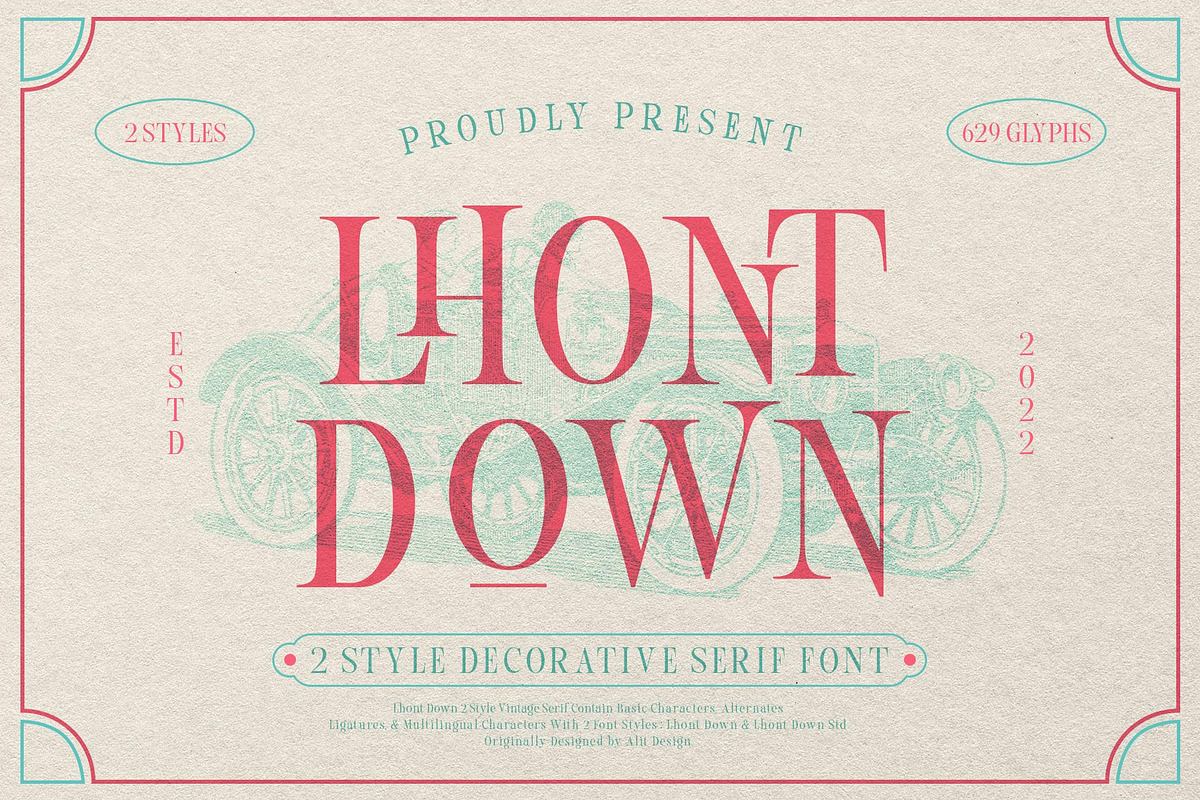
Lhont Down Typeface Free Download
Lhont Down Typeface Free Download is a sleek and modern font designed to bring style and sophistication to your creative projects. With its clean lines and contemporary feel, Lhont Down is perfect for branding, logos, posters, and more. Its versatile design ensures it works beautifully for both digital and print applications, giving your designs a professional, polished look.